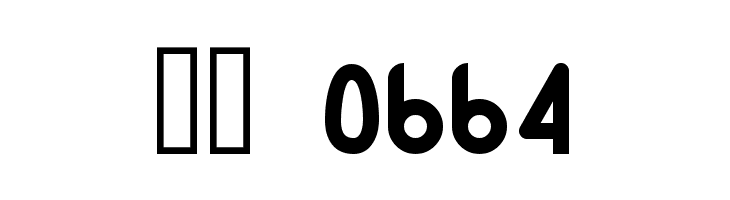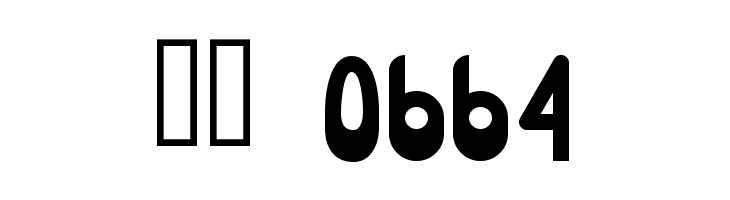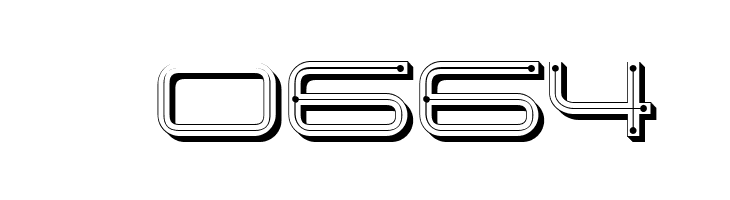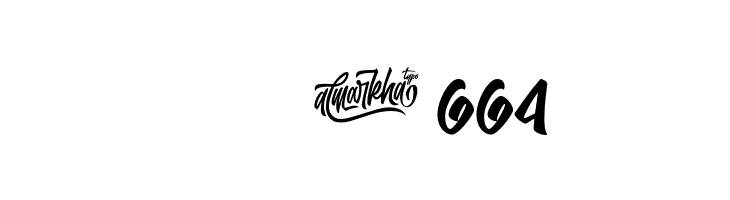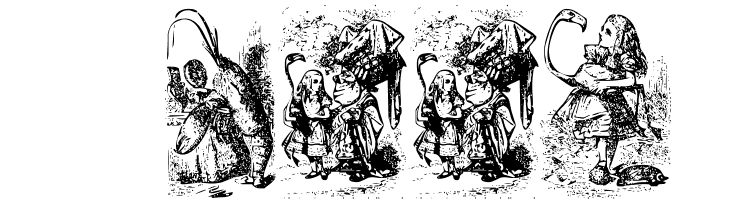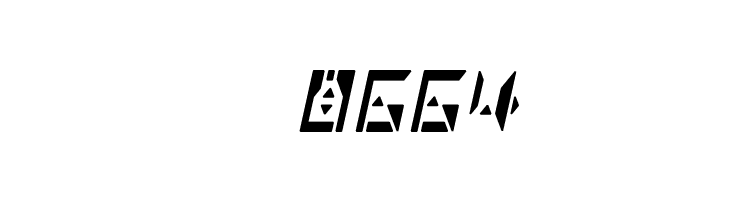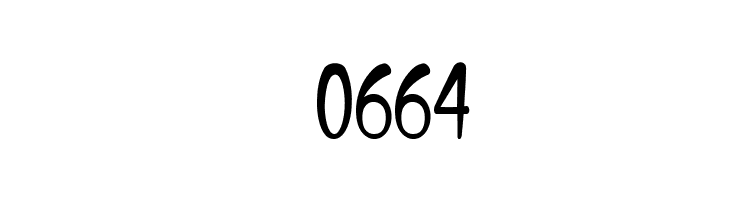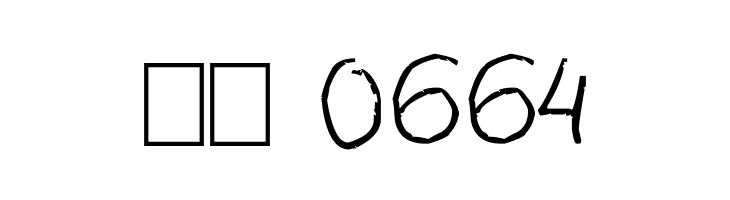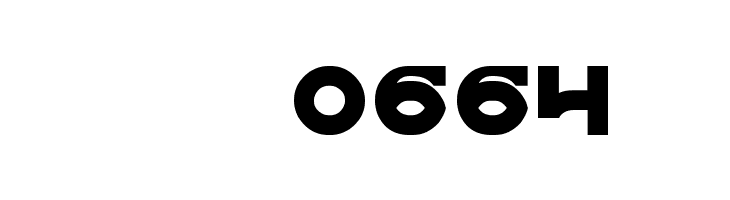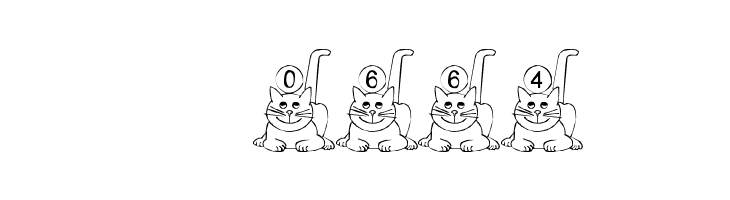
A bold, geometric font with a modern and versatile style.
A fluid, handwritten-style font with a personal and elegant touch.
A casual, handwritten font with a fluid, signature-like style.
A modern, rounded sans-serif font with uniform strokes and excellent readability.
An elegant and flowing script font with graceful curves and fluid strokes.
A bold, cursive script font with expressive, flowing strokes.
A classic and elegant font with clean lines and balanced proportions.
A whimsical and decorative font with elegant loops and cursive elements.
A modern, elegant font with thin, elongated letterforms and subtle curves.
A dynamic, handwritten font with an expressive and artistic style.
A bold, geometric font with a futuristic and modern design.
A bold, geometric font with a double-line structure and modern appeal.
A lively and energetic script font with fluid, interconnected strokes.
A lively and dynamic script font with elegant loops and fluid strokes.
A dynamic script font with fluid, connected strokes and a handwritten style.
A clean, modern font with balanced structure and consistent stroke width.
A bold, geometric font with calligraphic influences and a modern aesthetic.
A bold, geometric font with strong strokes and sharp angles.
An elegant and sophisticated cursive script font with decorative swirls.
A classic serif font with elegant strokes and a traditional aesthetic.
A fluid and elegant script font with smooth, flowing lines.
A whimsical font with characters embedded in cartoon cat designs.
A bold, expressive script font with a playful and energetic style.